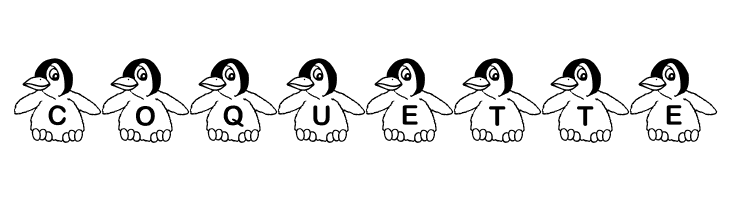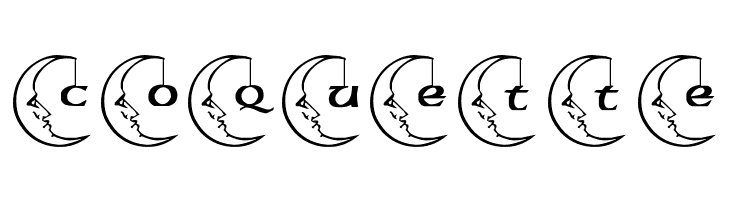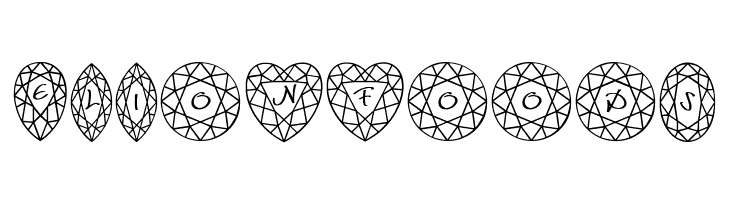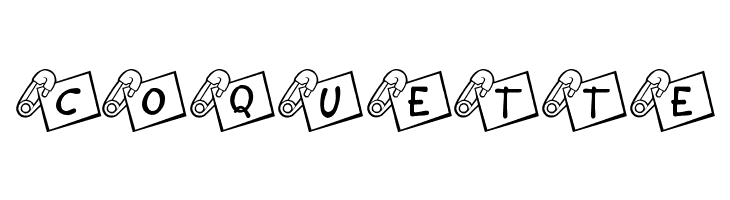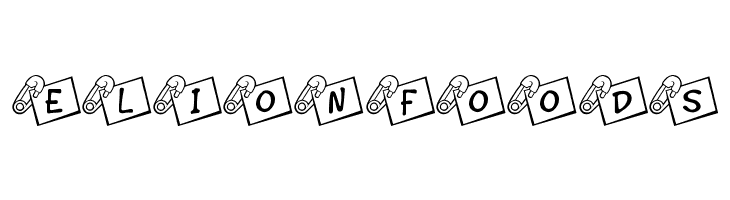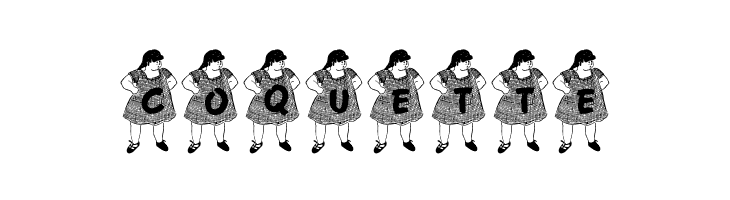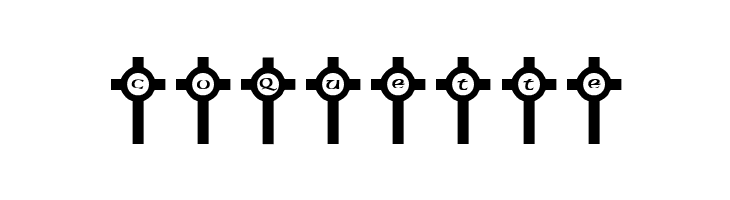
A playful and decorative font with letters inside heart shapes, topped with a sleeping cat motif.
A decorative font with characters encased in crescent moons, featuring a celestial theme.
A whimsical font with letters integrated into penguin illustrations, perfect for playful designs.
A whimsical, decorative font with letters embedded in playful character illustrations.
A decorative font with characters enclosed in Celtic crosses, blending tradition with modern style.
A decorative font with letters set in gem-like shapes, offering a luxurious and elegant appearance.
A playful font with letters on tags attached to diaper pins, ideal for baby-themed projects.
A playful font with bold letters and integrated cartoon dog illustrations.